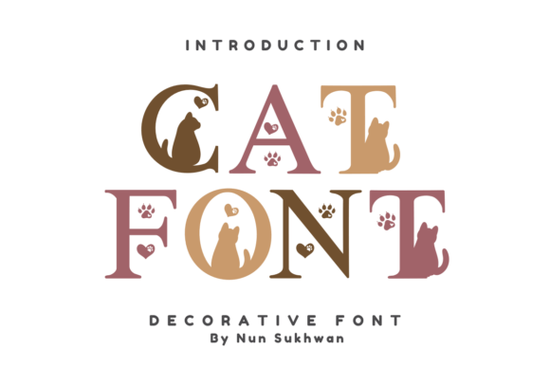
Designers, crafters, and small business owners often look for unique fonts that add personality to their projects. The Cat Font is a perfect example of a decorative typeface that brings a playful and whimsical touch to any design. Whether you're creating greeting cards, social media posts, or custom merchandise, this font offers a fun and creative way to express yourself.
The Cat Font is ideal for anyone who wants to add a little flair to their work. Its feline-inspired style makes it especially popular among those working on pet-related projects, but its versatility means it can be used in many other contexts too. From stationery and mugs to banners and t-shirts, this font is a great choice for adding visual interest without being overwhelming.
One of the best things about the Cat Font is how it can be used across different platforms. You can apply it to digital designs, such as Instagram posts or Facebook covers, or print it on physical items like notebooks, stickers, and clothing. This flexibility makes it a valuable addition to any designer's toolkit.
How to Use the Cat Font in Your Projects
There are many ways to incorporate the Cat Font into your creative work. Here are a few ideas:
- Personalized stationery: Use it for handwritten notes, thank-you cards, or birthday invitations.
- Social media graphics: Add it to your profile pictures, post headers, or promotional banners.
- Print-on-demand products: Apply it to mugs, t-shirts, and phone cases for a unique touch.
- Decorative elements: Use it as a border, watermark, or accent in larger design projects.
When using the Cat Font, keep in mind that it works best in smaller sizes. Larger text may appear too stylized or difficult to read. Experiment with different layouts to find what works best for your specific needs.
Why Choose the Cat Font?
The Cat Font is more than just a pretty design it’s a practical tool for anyone who wants to add a bit of charm to their work. Its clean yet playful look makes it suitable for a wide range of applications, from casual to professional settings. Plus, it’s easy to download and use, so you can start incorporating it into your projects right away.
Whether you're a hobbyist or a professional designer, the Cat Font is a great addition to your collection. Its unique style and versatility make it a valuable asset for any creative project. Start experimenting today and see how this font can bring a new level of creativity to your work.
As you continue to work with the Cat Font, remember to keep your designs balanced and readable. While it’s a fun and expressive typeface, it’s important to use it in a way that enhances your overall message. With a little practice, you’ll be able to create stunning designs that stand out from the crowd.